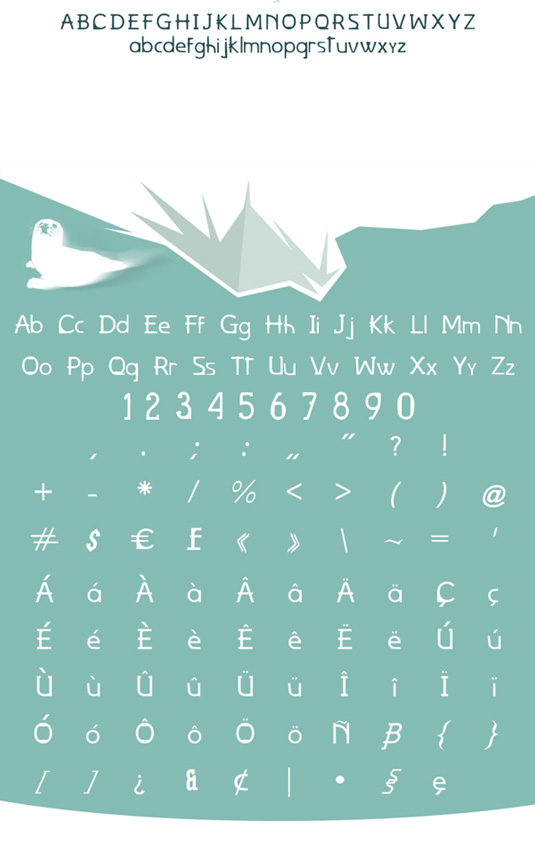
Font of the day: Uncut
Every day we showcase the best fonts on the web. Today it's Uncut by Charles-David Gaudreault.
Uncut by Charles-David Gaudreault
Today's font of choice, Uncut, was created by multimedia producer and photographer Charles-David Gaudreault. For just $5 you can download this stylish design, which comes complete with a full set of upper and lowercase letters, number and various special characters.